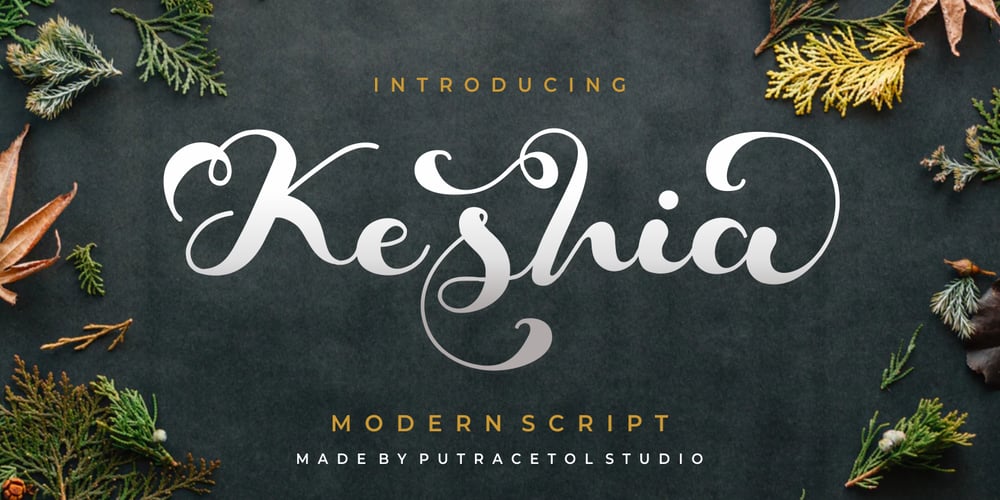
Keshia Font Family was designed by Putra Novembria Candra Kusuma and published by Putracetol. Keshia contains 1 styles and family package options. Introducing Keshia, a fun and fancy script font with a lot of alternates character. The flourish touch is unique, its help you to make wonderful lettering. Keshia is perfect for logotype creation, lettering compositions, wedding invitations, fashion projects, book cover design, magazines, cards, packagings, posters, branding and more.